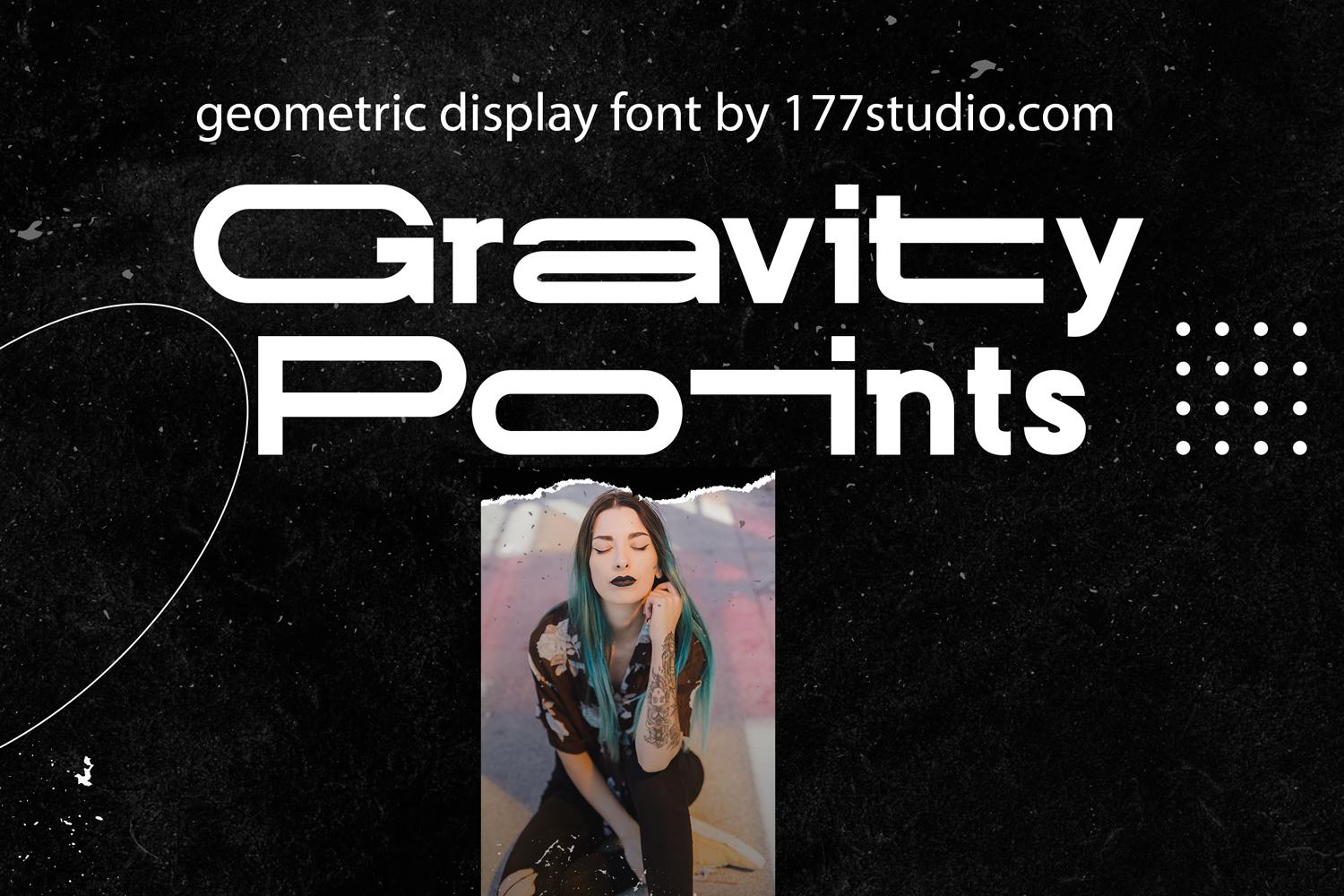
Gravity Points Font Description
Gravity Points is a minimal and neat display font. It can easily be matched to an incredibly large set of projects, so add it to your creative ideas and notice how it makes them stand out! Gravity Points is PUA encoded which means you can access all of the glyphs and swashes with ease!